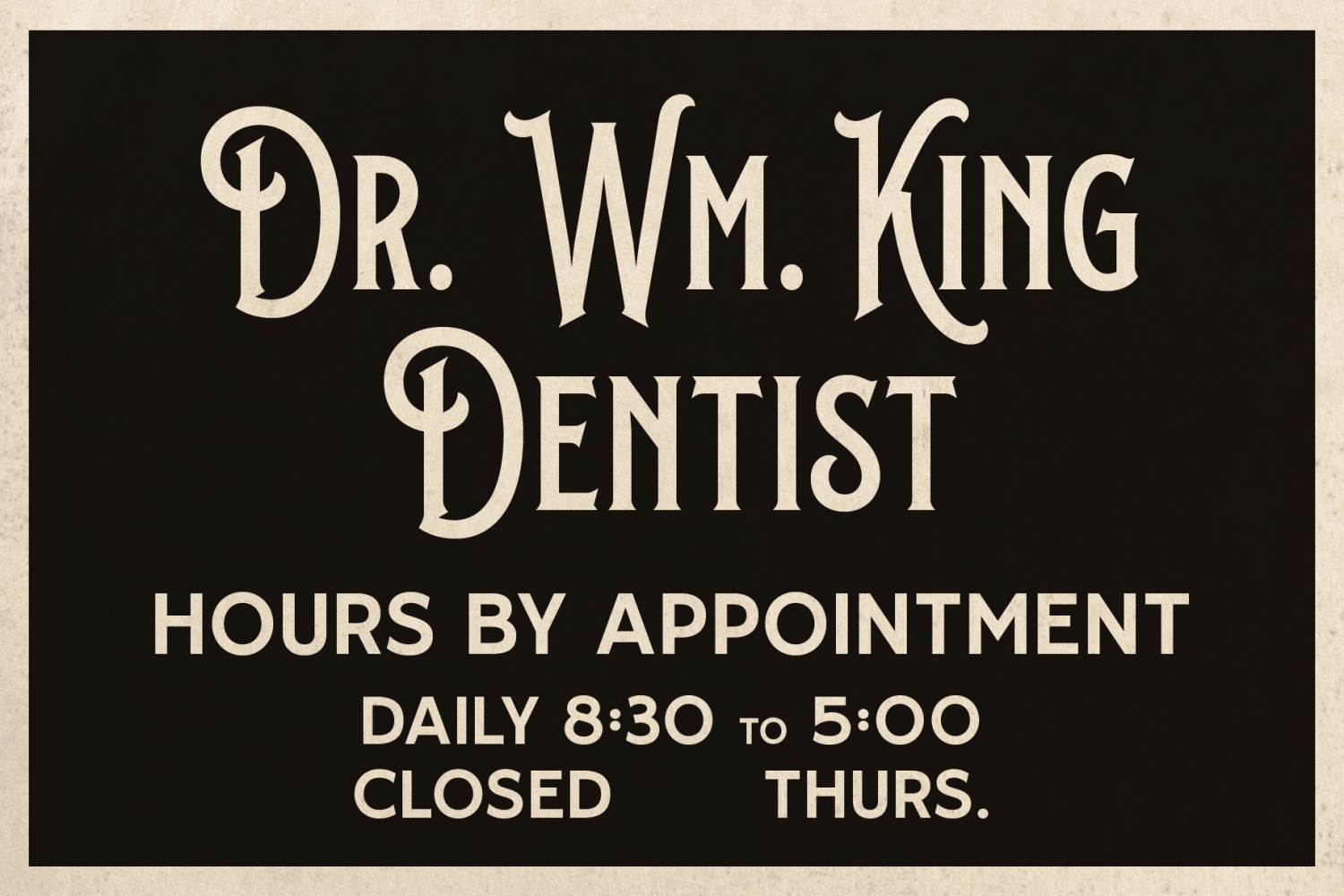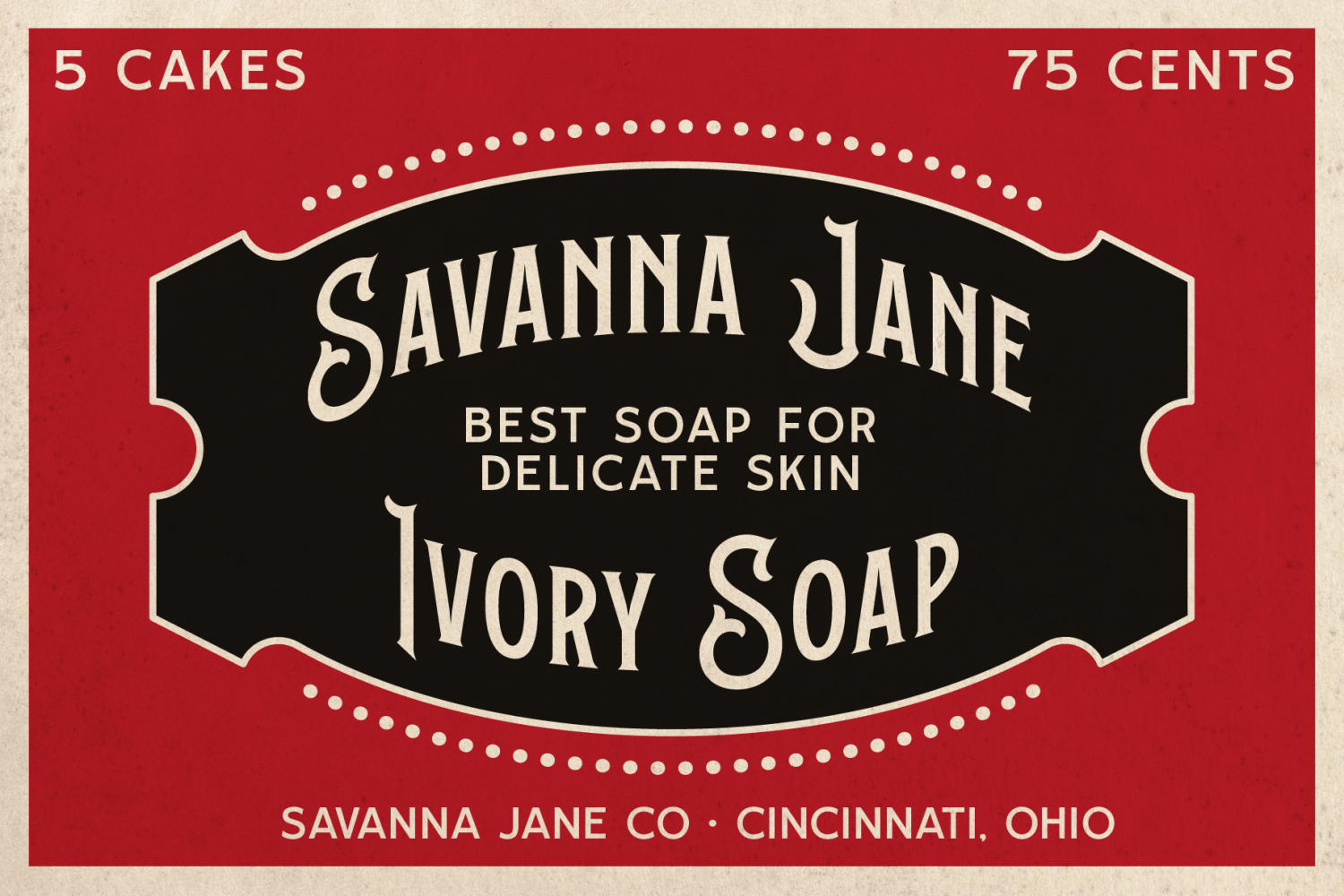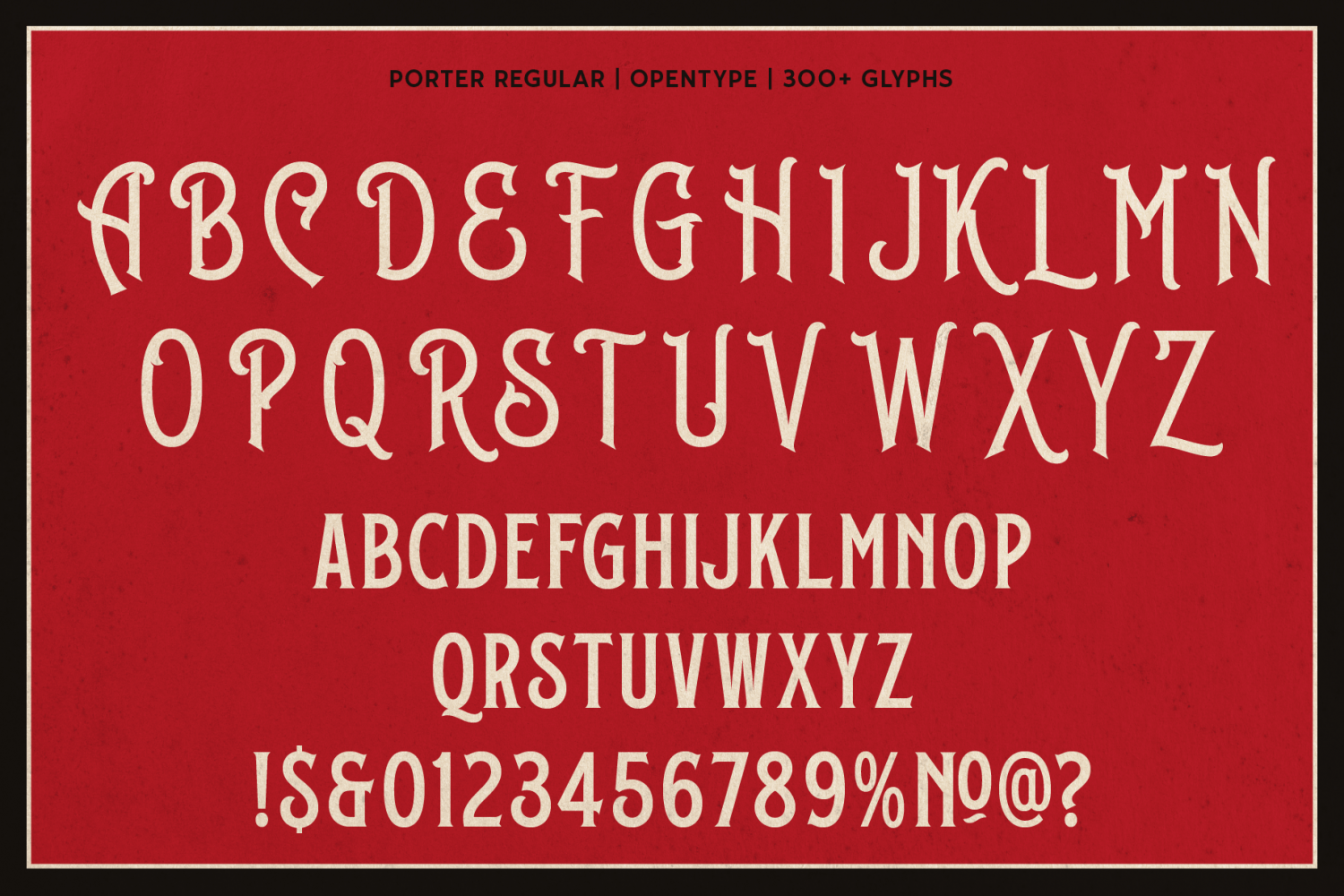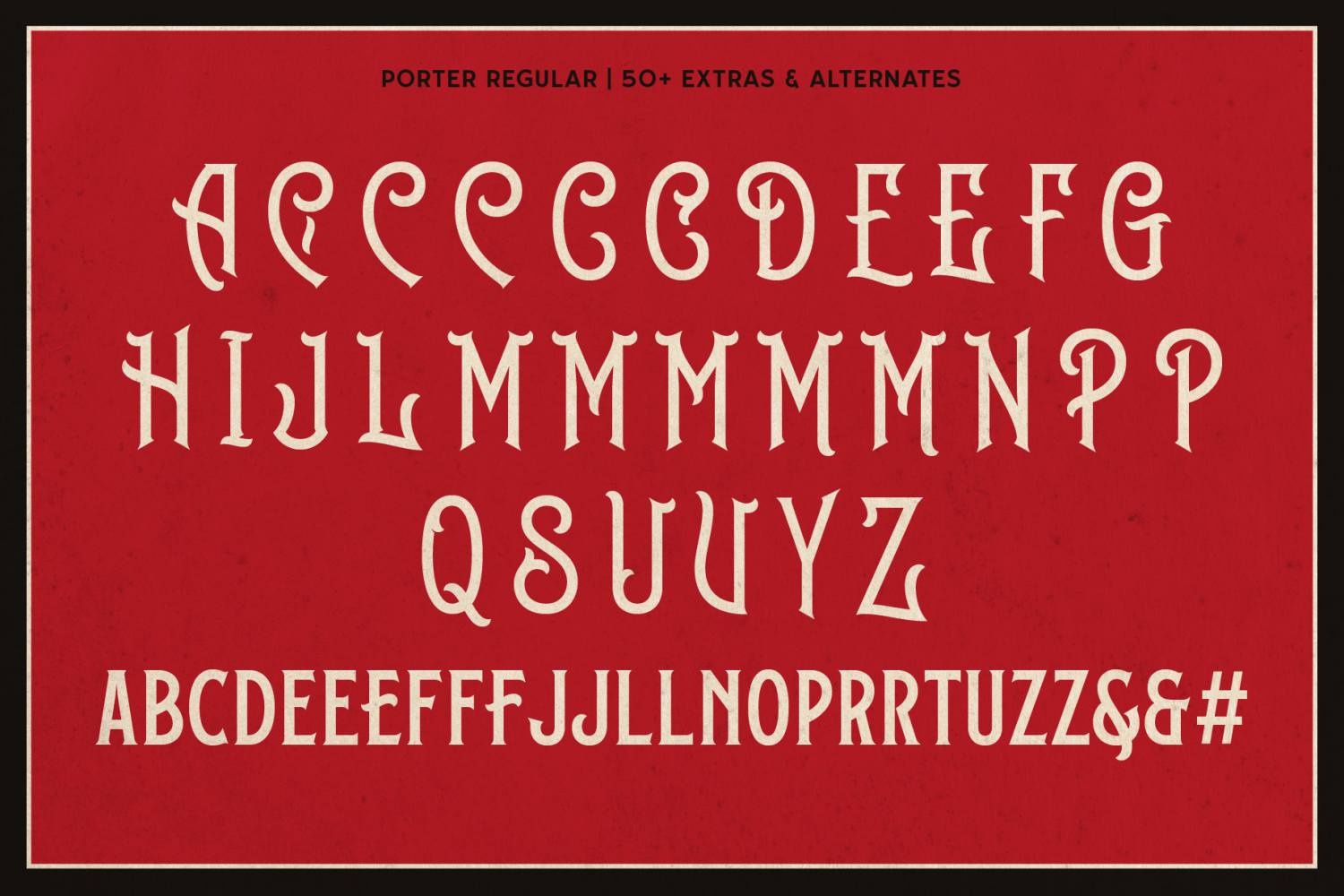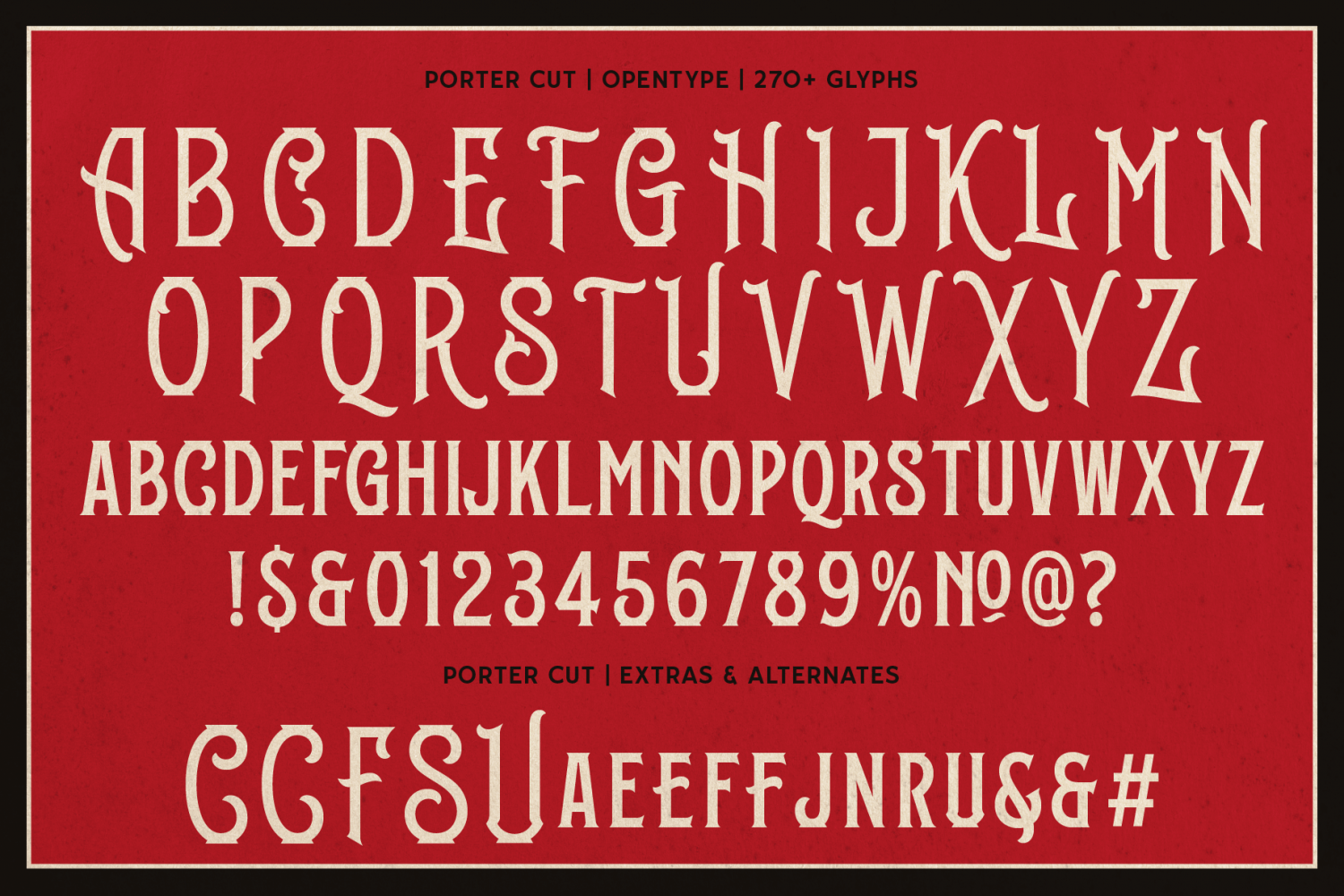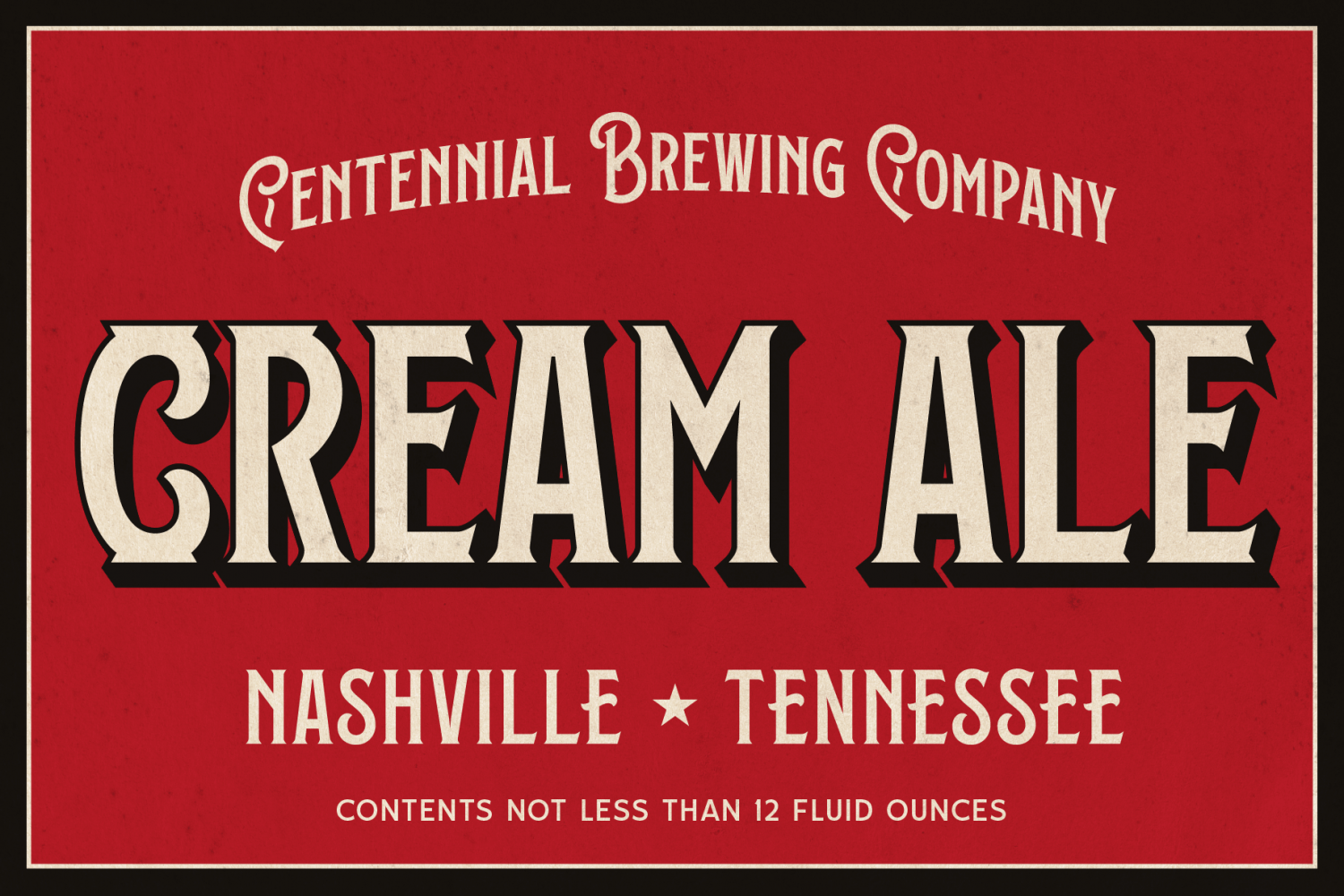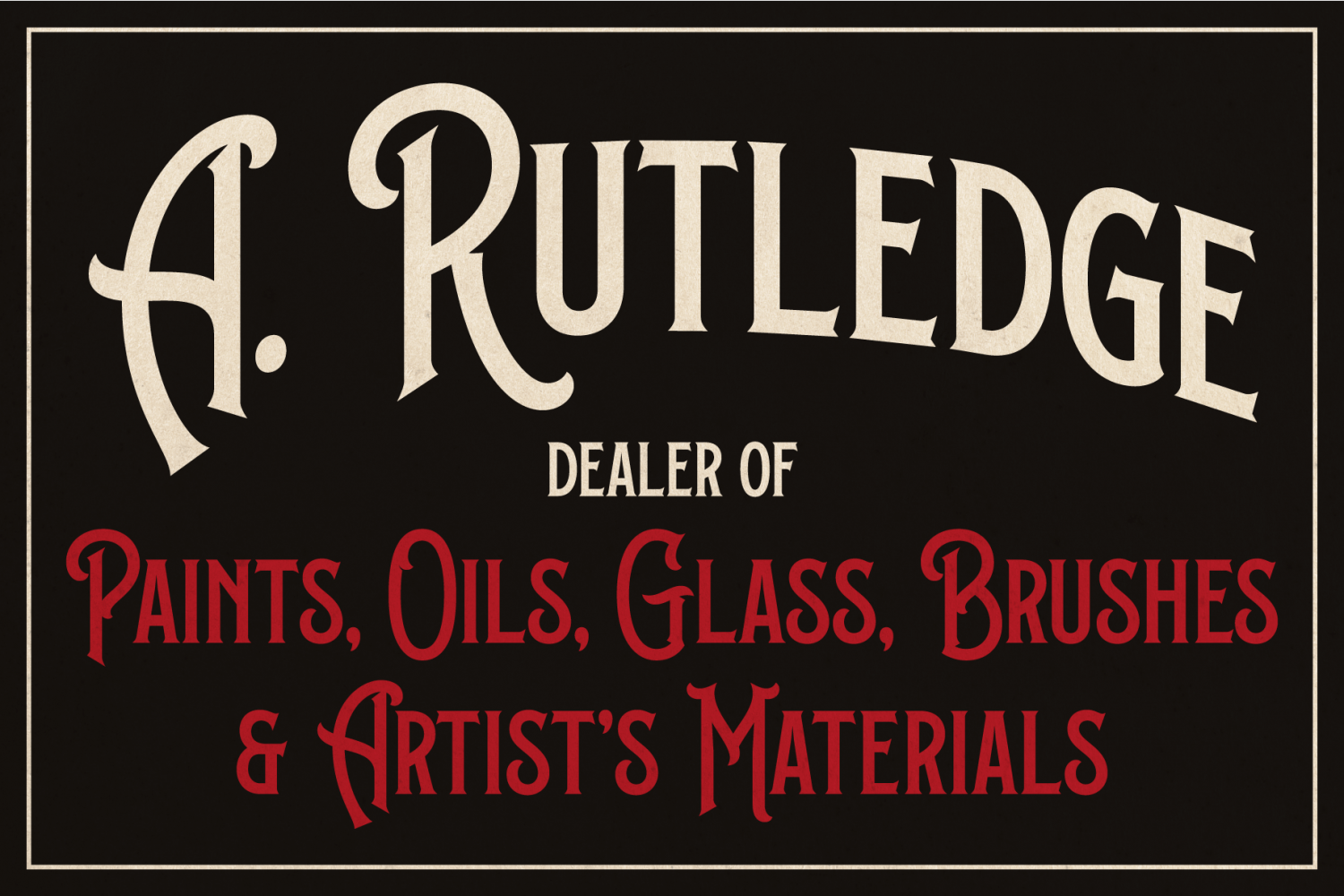
About Porter Cut
Upper and lowercase A-Z Numerals and punctuation Accent characters Porter has 54 Stylistic alternates and 7 Ligatures Porter Cut has 17 Stylistic alternates and 7 Ligatures Porter is a bold, easy-to-read font pair that\’s perfect for replicating vintage,…